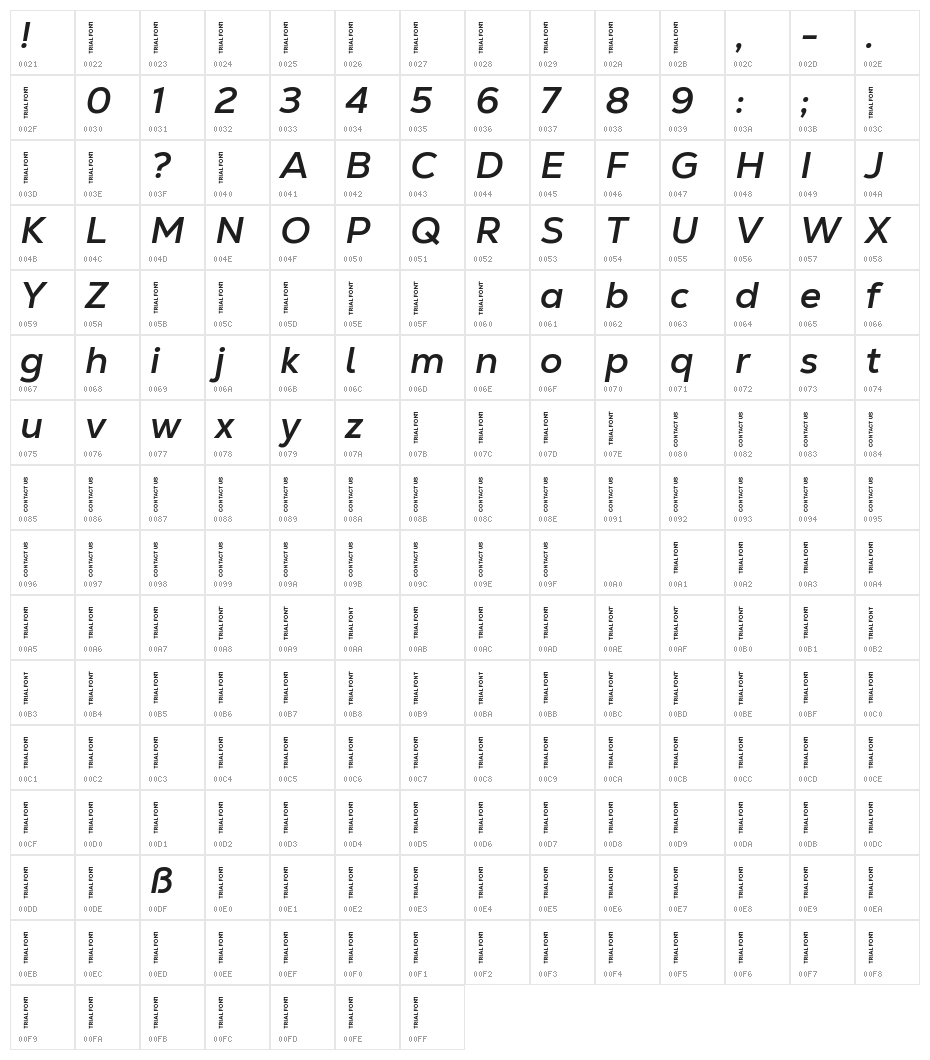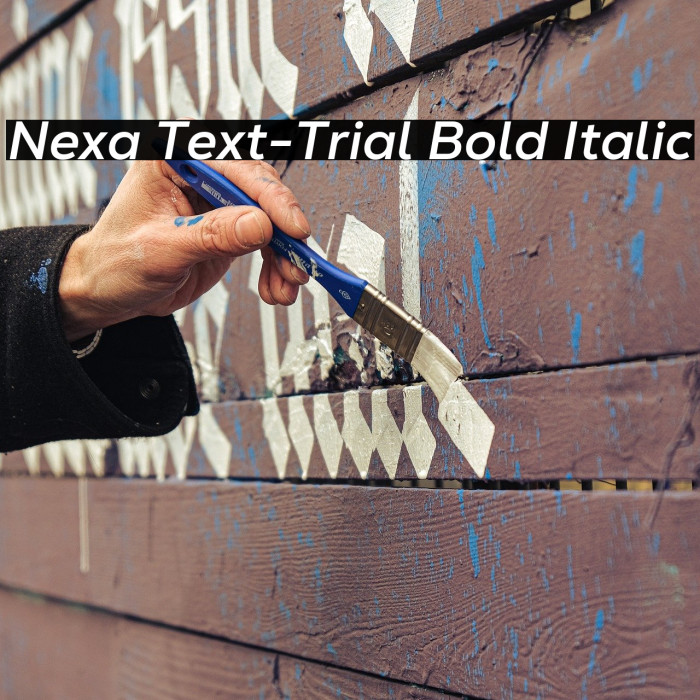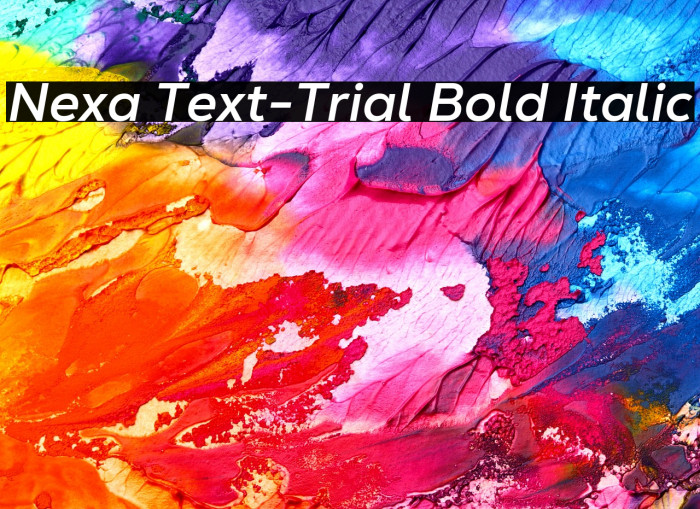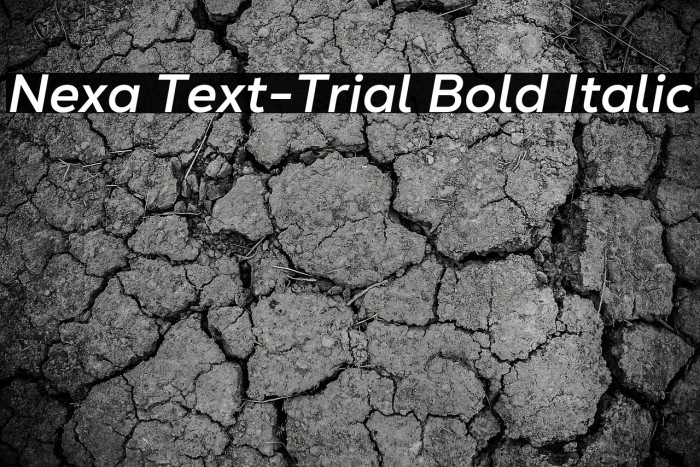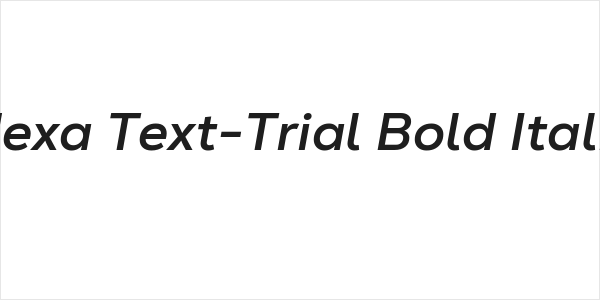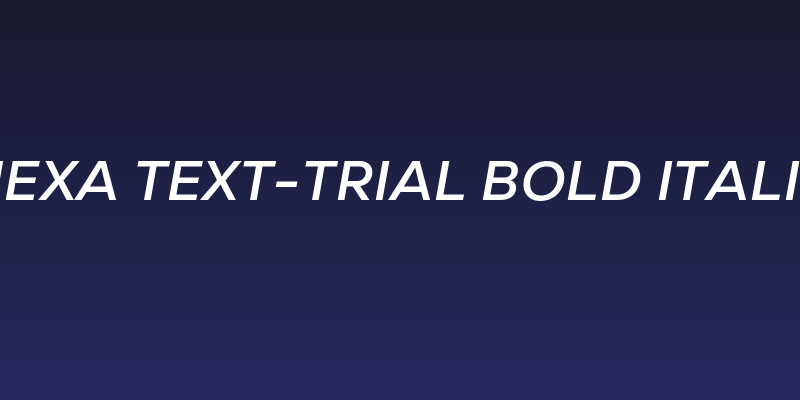
Nexa Text-Trial Bold Italic Font
Nexa Text-Trial Bold Italic Description
This font exhibits a modern and sleek design with a bold and italicized style. The characters are slightly slanted, giving a dynamic and forward-moving appearance. The strokes are consistent in thickness, providing a uniform and clean look. The font maintains a balanced proportion between height and width, ensuring readability across various sizes. The numerals are clear and distinct, matching the overall aesthetic of the alphabetic characters. Special characters are well-integrated, maintaining the font's cohesive style. This typeface is versatile, suitable for both digital and print media.
| Use Case | Headlines, Logos, Digital interfaces |
| Proposed Projects | Ideal for branding, advertising, headlines, and digital interfaces where a modern and bold statement is needed. |